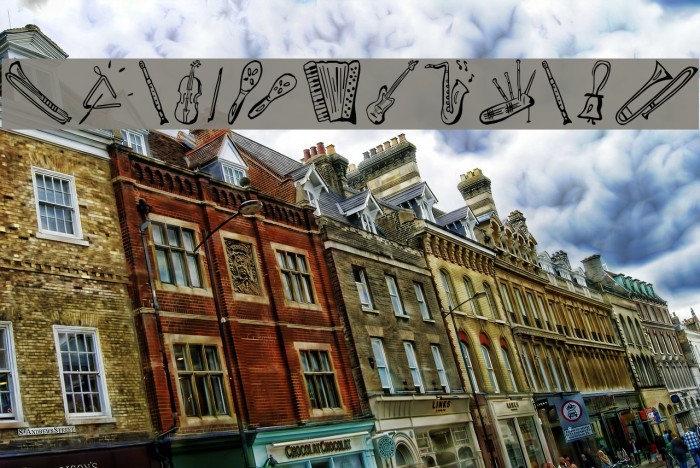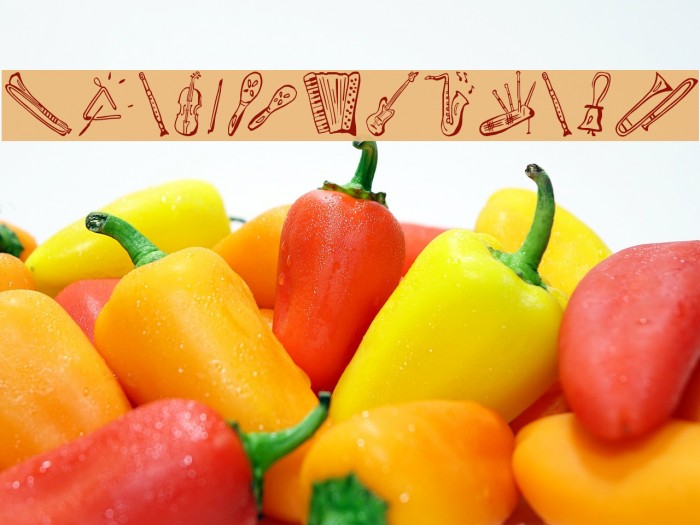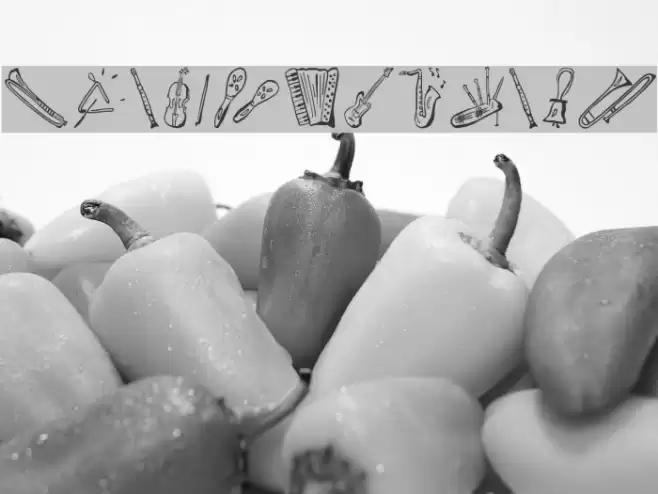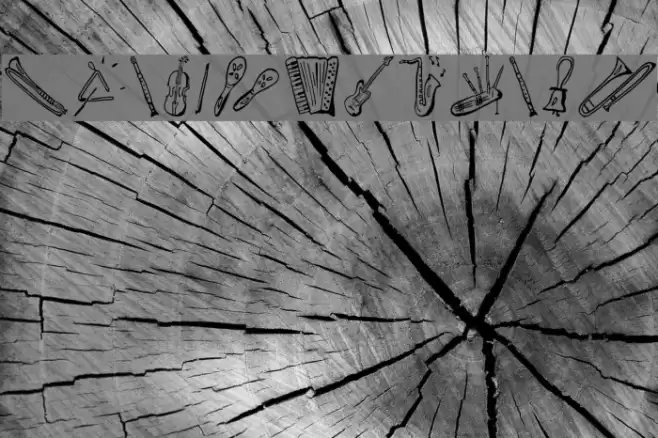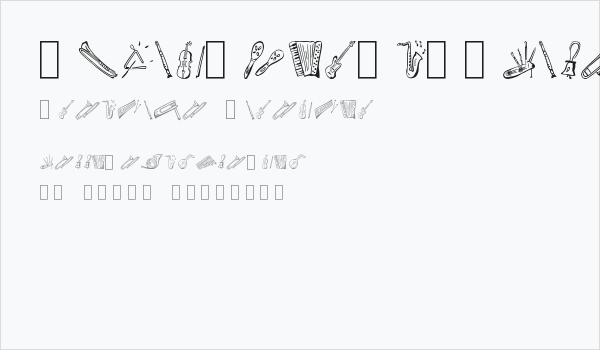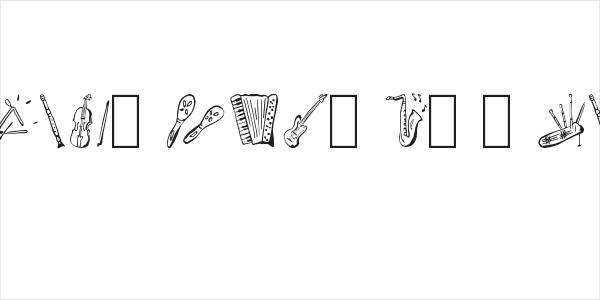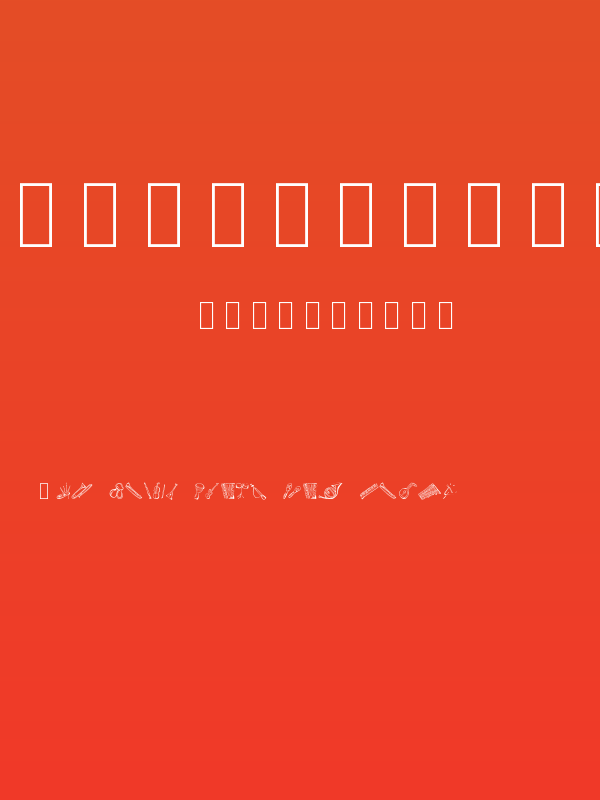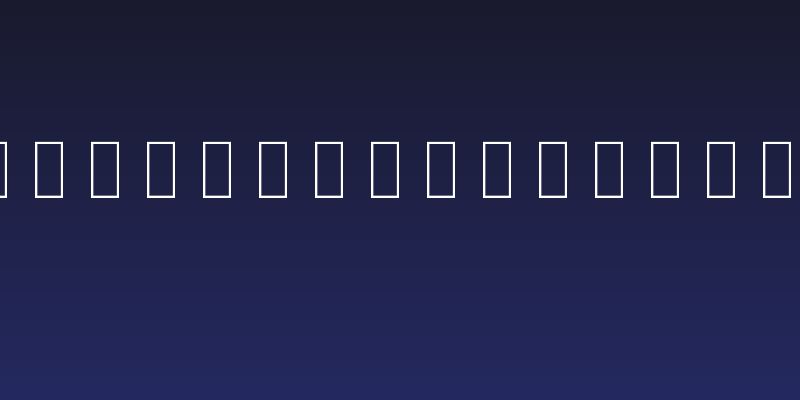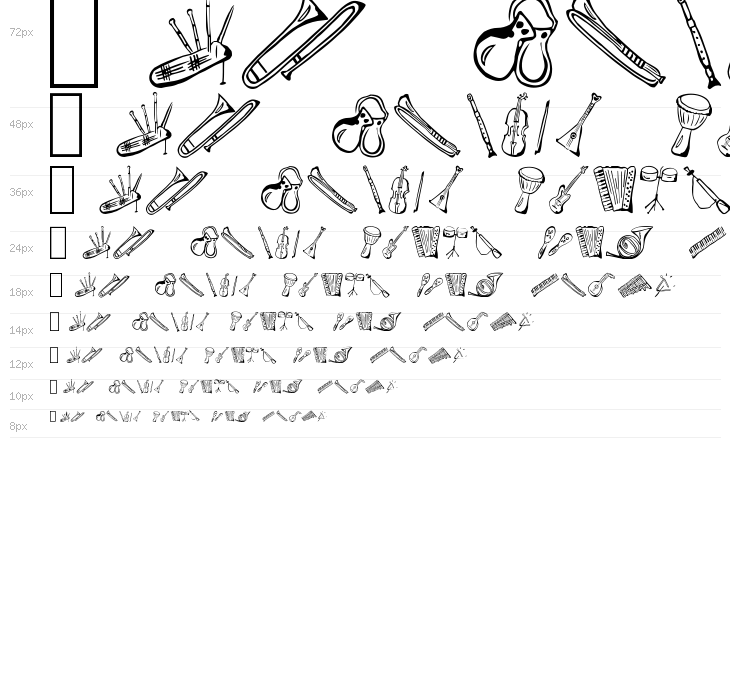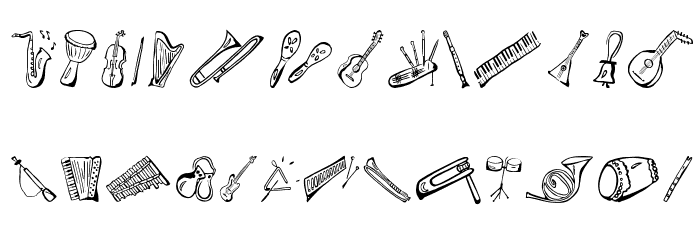
Music-for-a-While Font
Music-for-a-While Description
A playful, hand-drawn decorative font where each character is represented by a unique musical instrument illustration, giving a whimsical and artistic feel. The glyphs are detailed sketches, each corresponding to a different instrument, making the font highly illustrative and thematic.
| Overall Style | Decorative, Whimsical, Artistic |
| Use Case | Headlines, Posters, Themed graphics, Educational titles |
| Proposed Projects | ChildrenΓ’β¬β’s books, music event posters, educational materials, themed invitations, playful branding. |